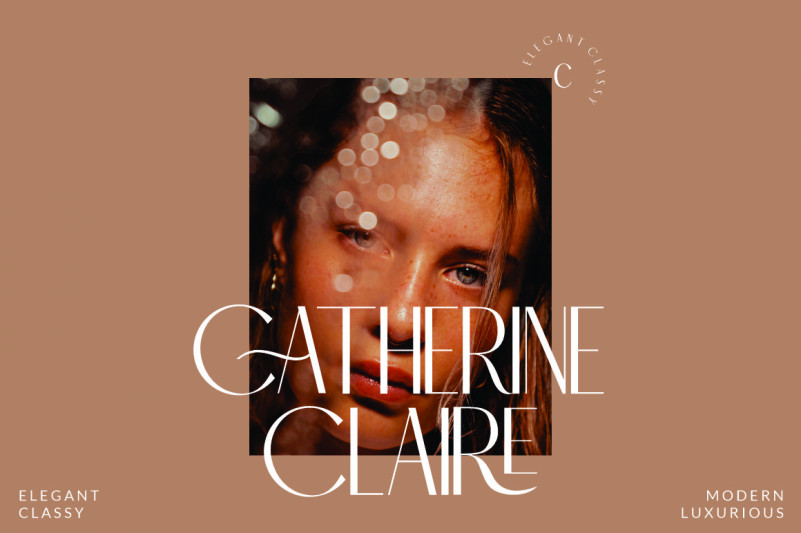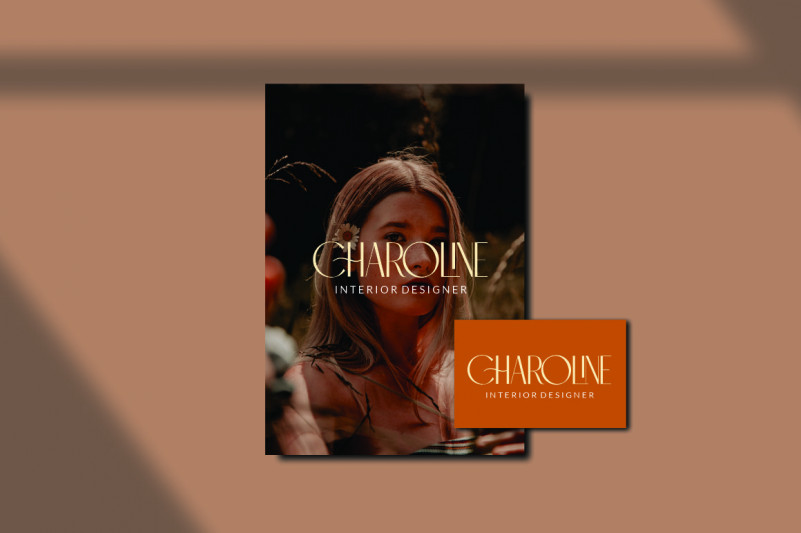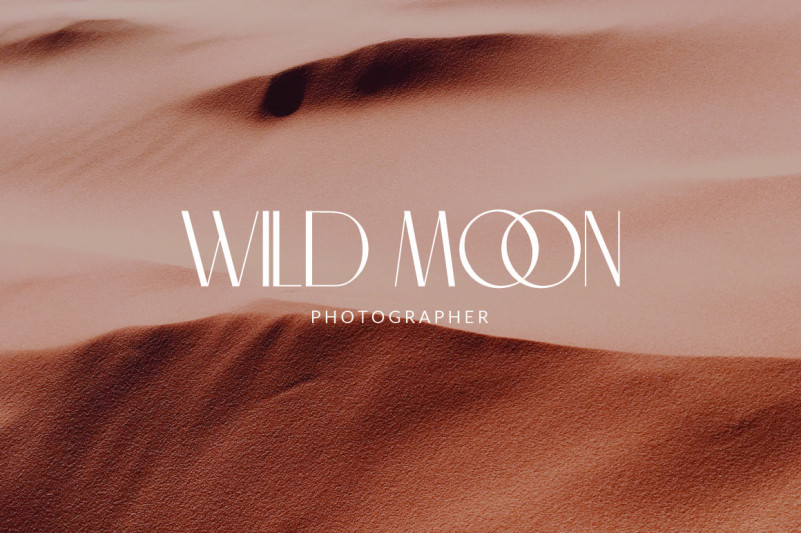
Mon de Tresor Font
Mon de Tresor Sans Serif Font
It’s a modern, and classy san serif typeface. Perfect for editorial projects, Logo design, Clothing Branding, product packaging, magazine headers, or simply as a stylish text overlay to any background image.